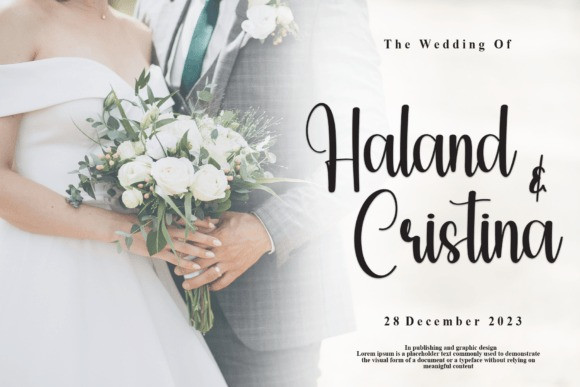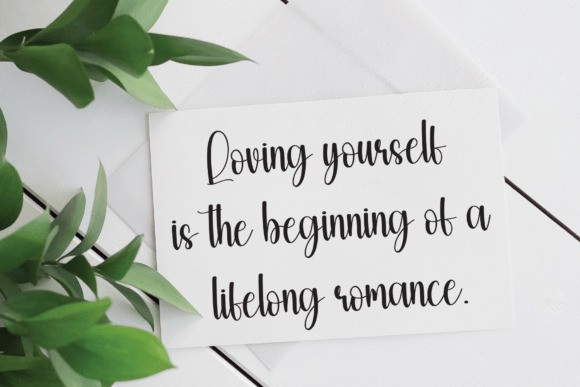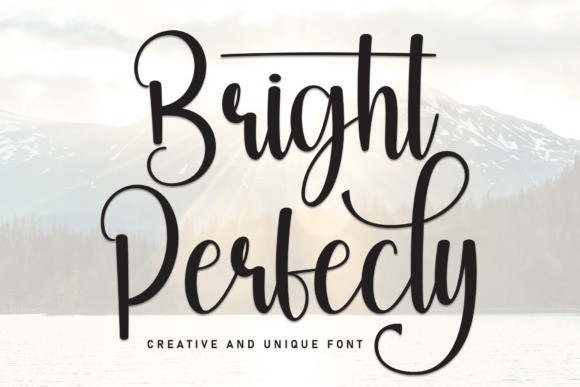
Bright Perfecly Script Font
Bright Perfecly Script Font is a magical script font carefully created with a touch of elegance. Whether you’re looking for fonts for Instagram or calligraphy scripts for DIY projects, this font will turn any creative idea into a true piece of art!